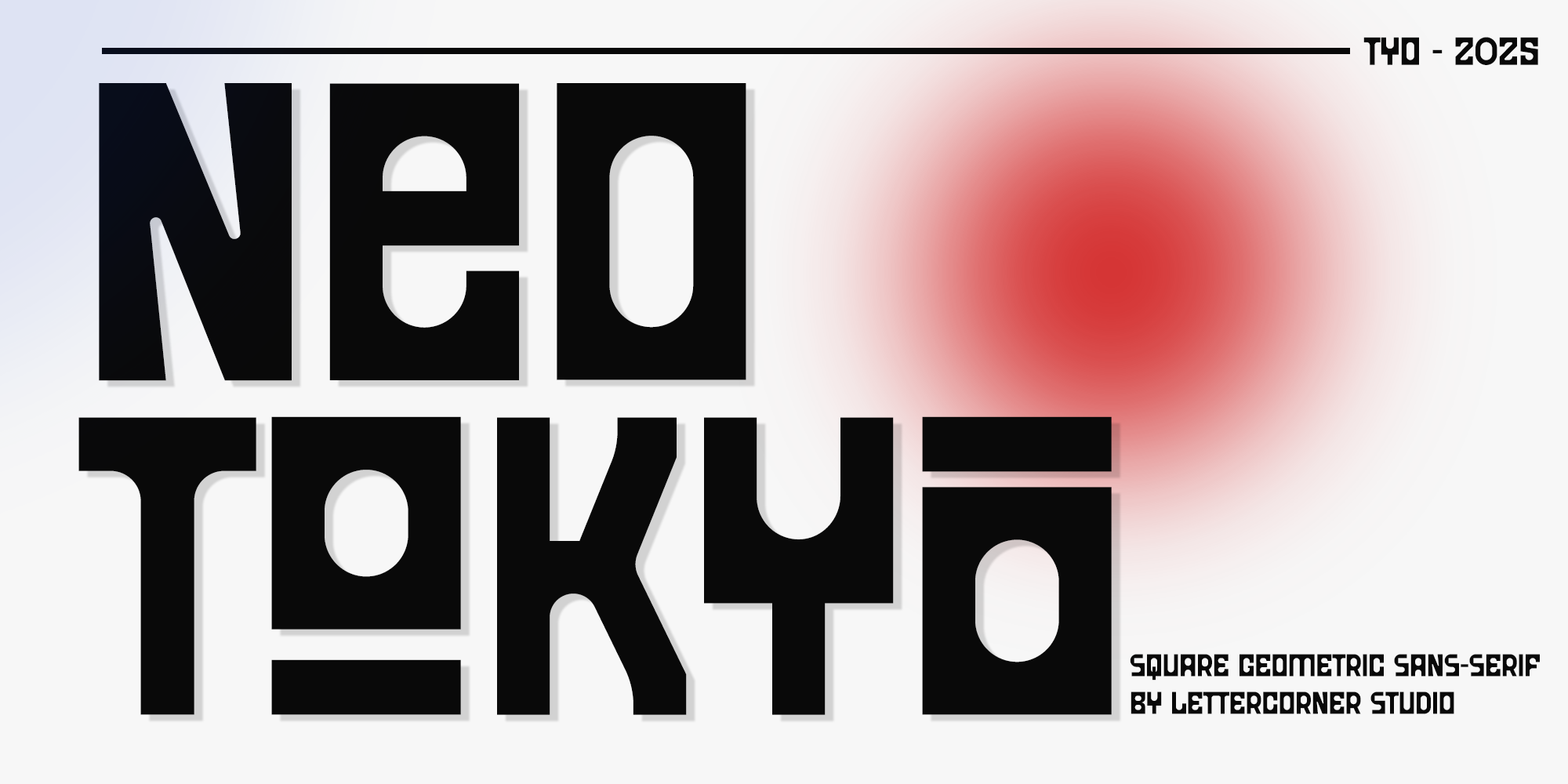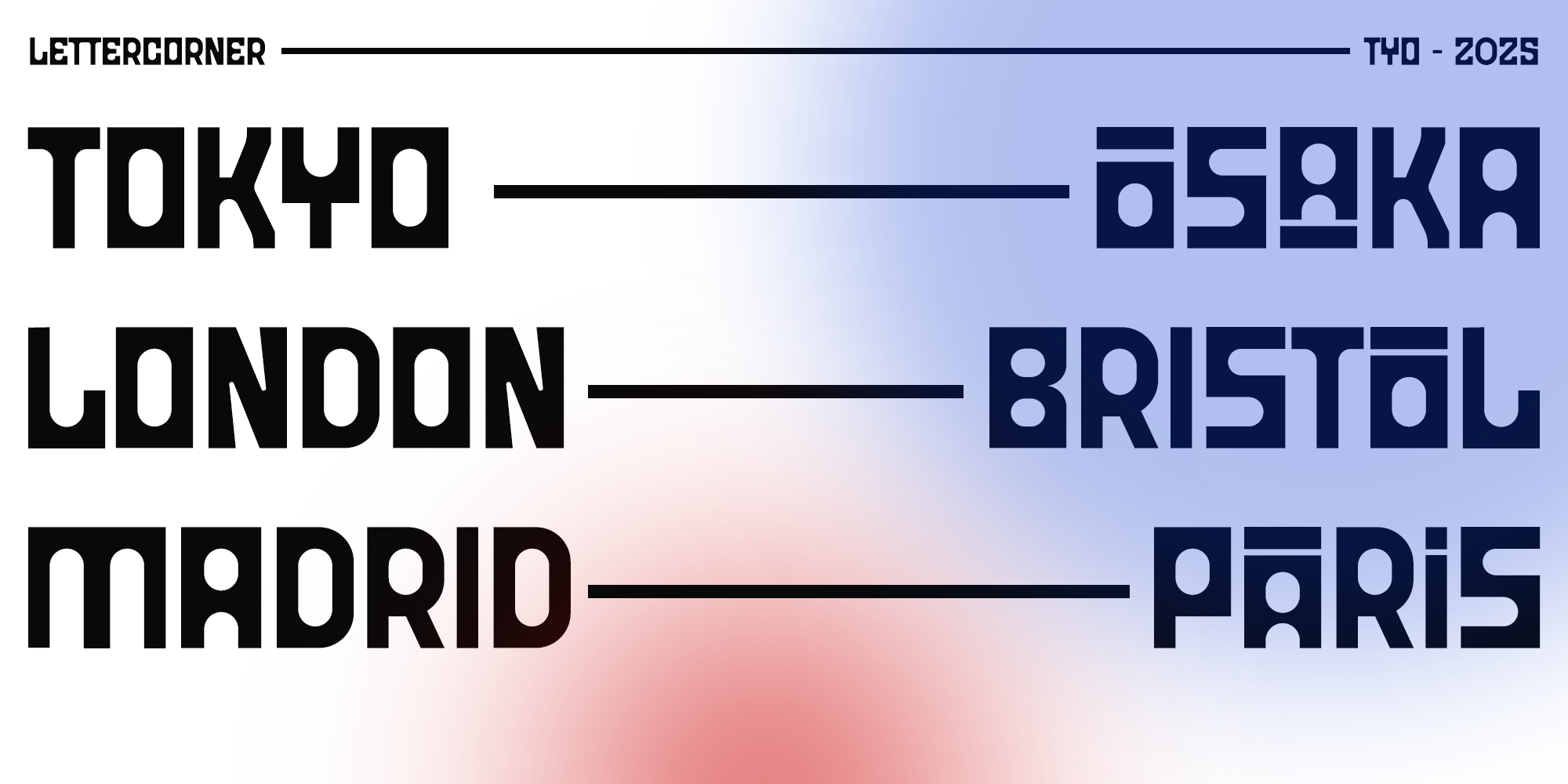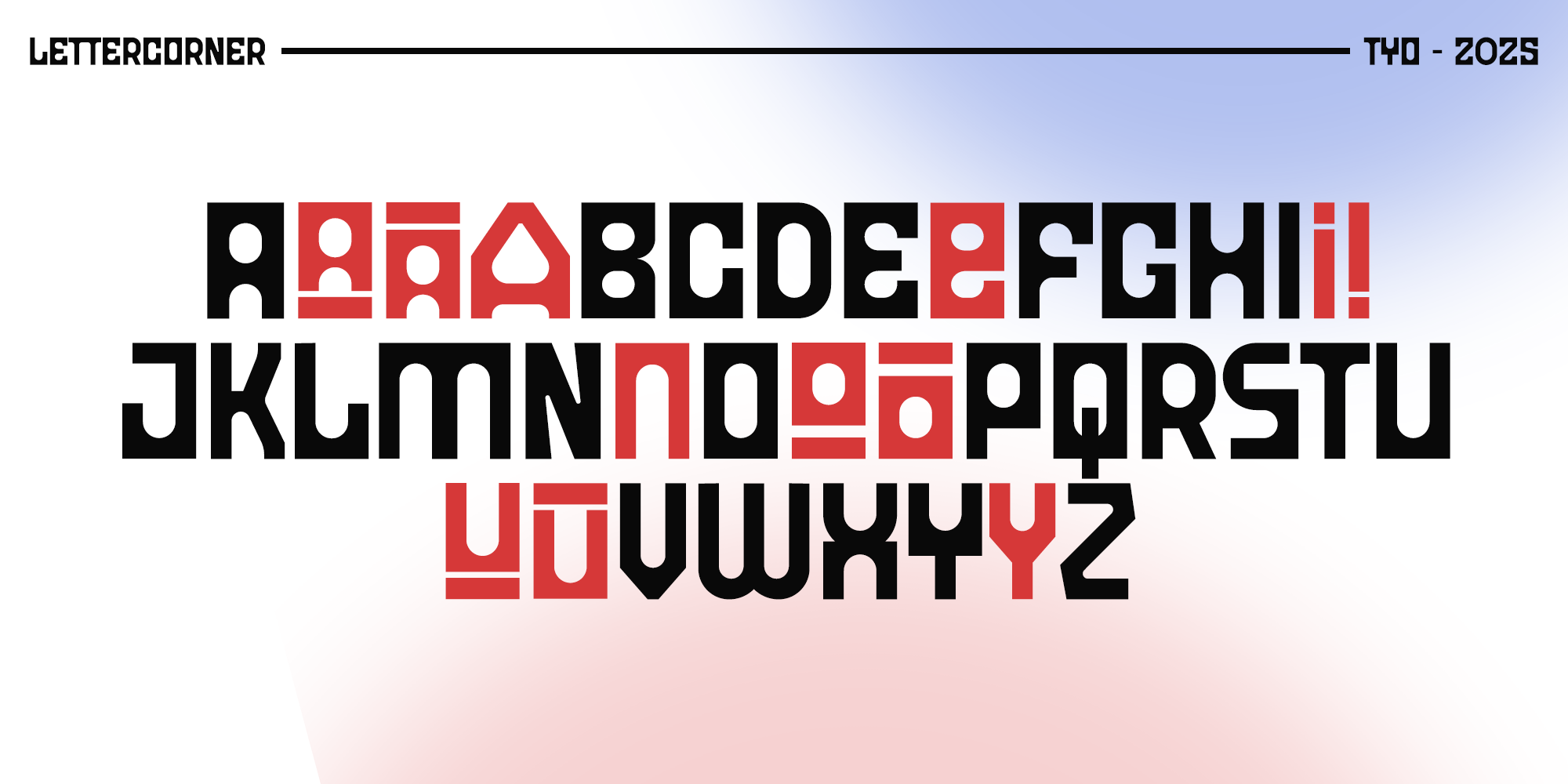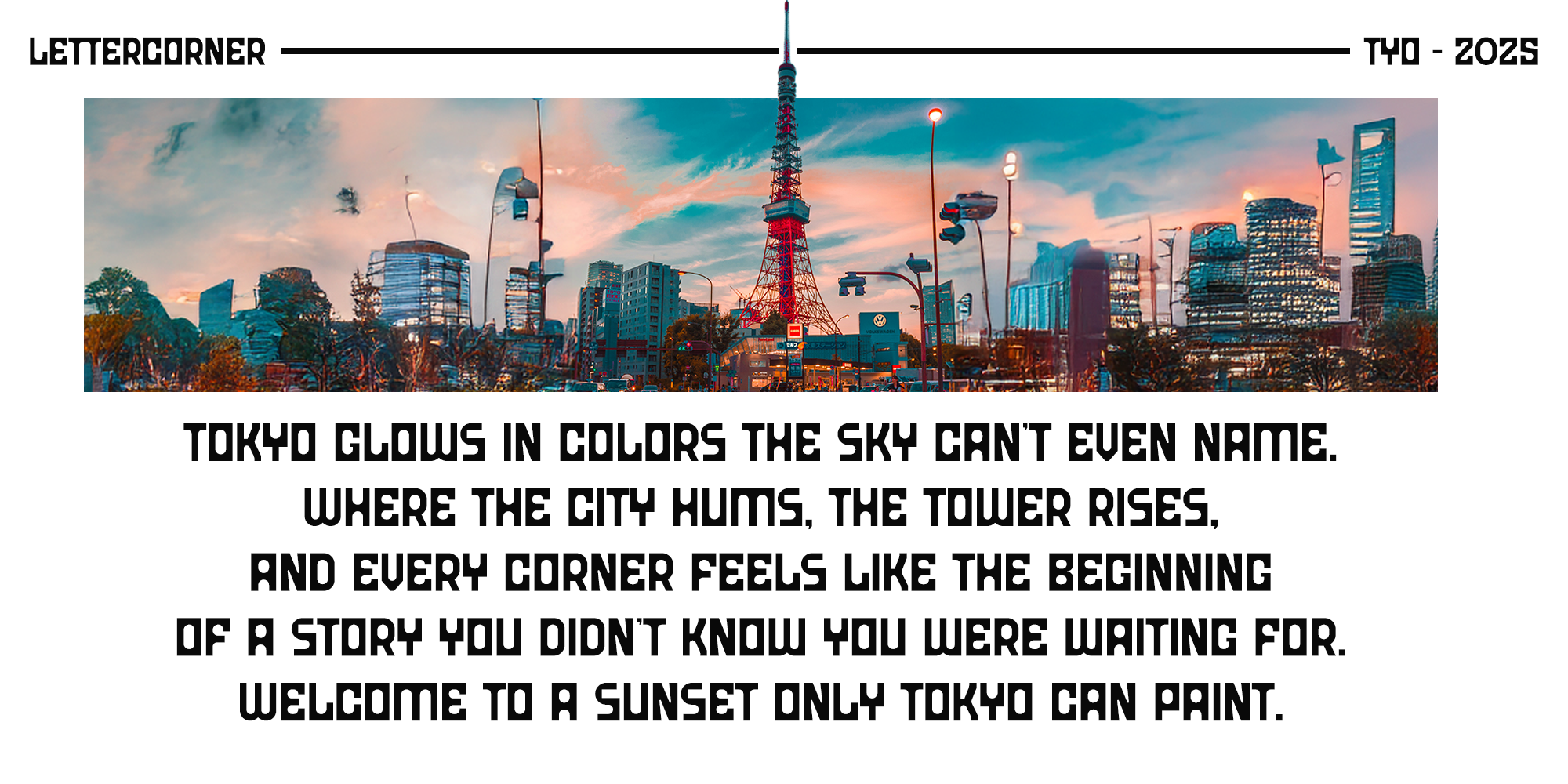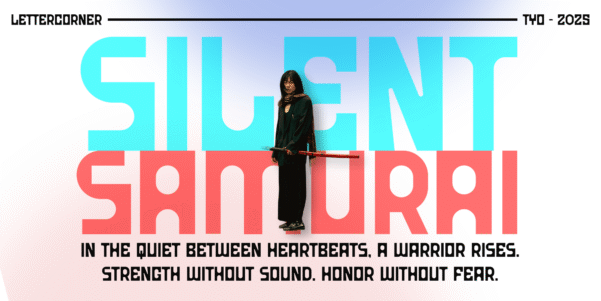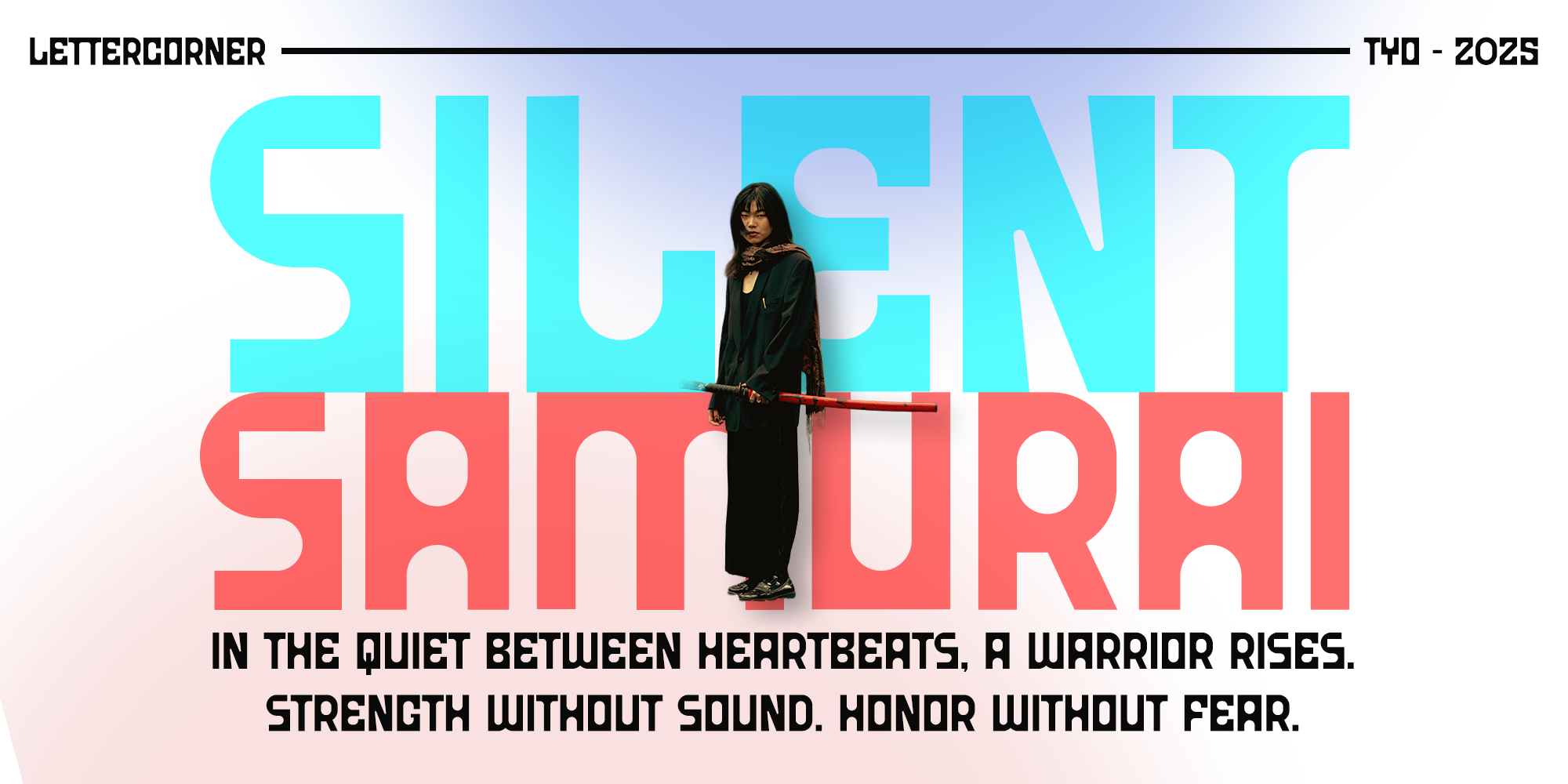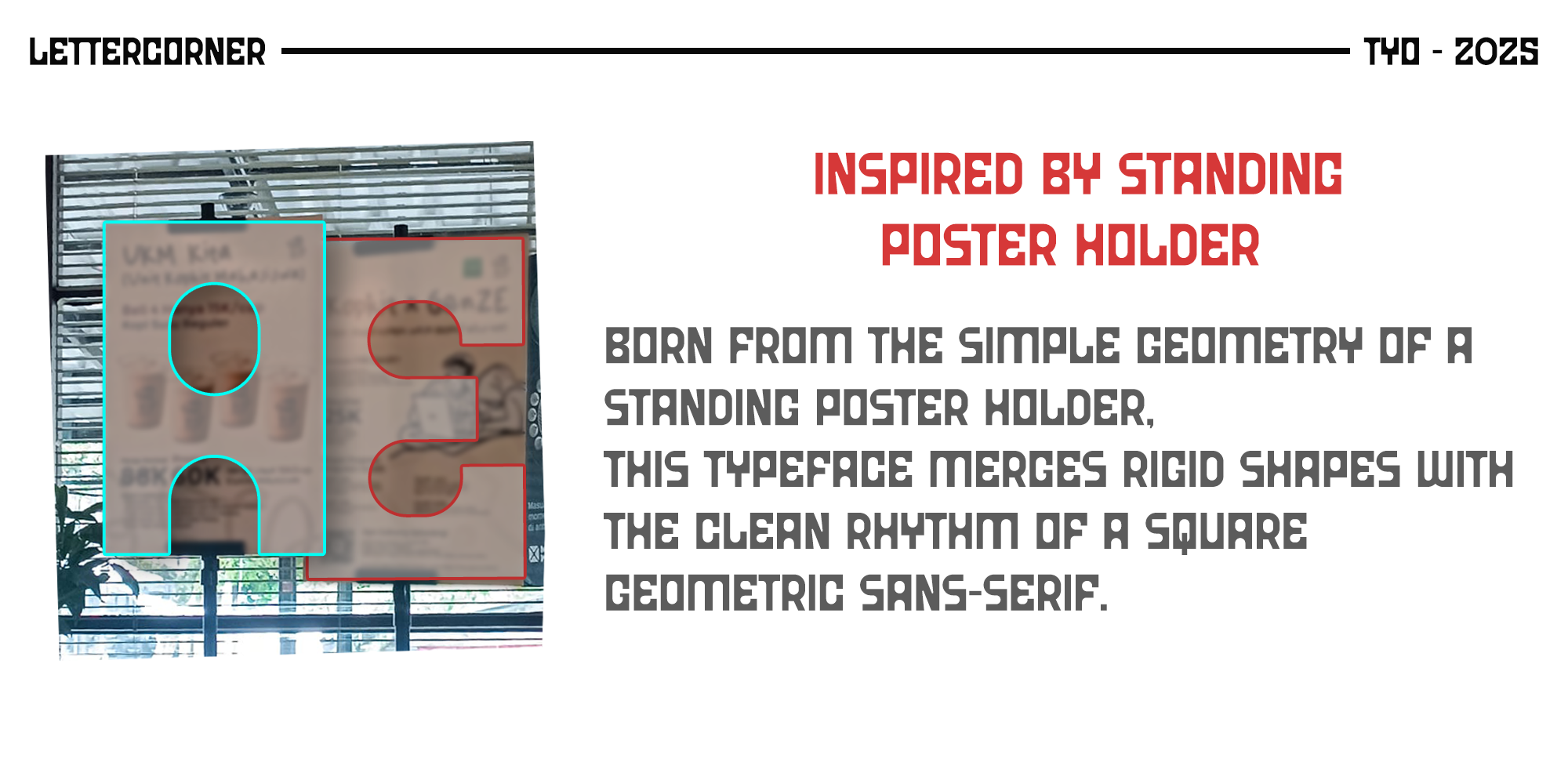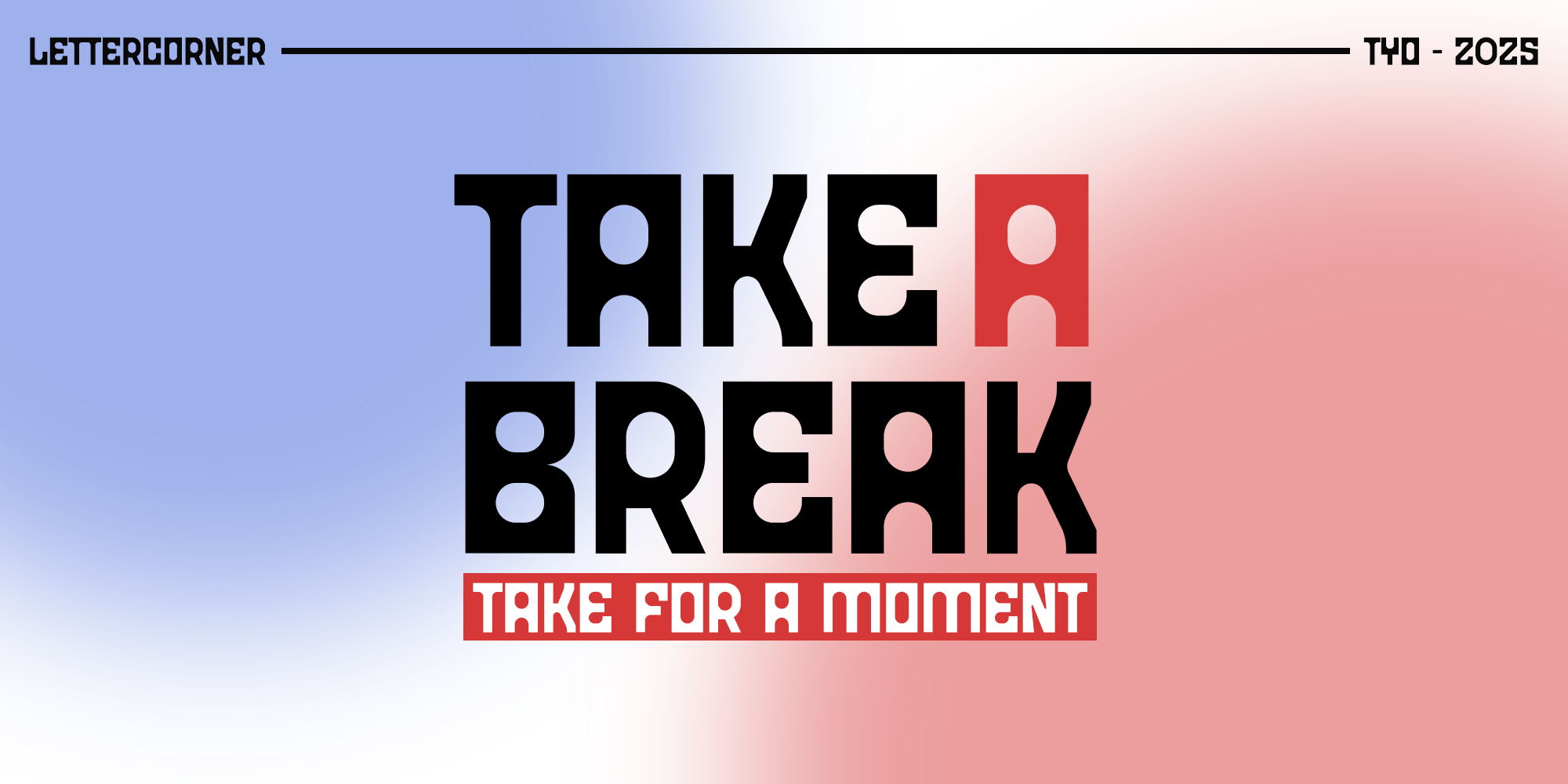
NEOTOKYO
NEOTOKYO is a display typeface inspired by the bold, structural silhouette of a standing poster holder.
Each letter blends rigid geometric forms with the clean rhythm of a square geometric sans-serif, producing a modern, boxy aesthetic that feels both industrial and futuristic.
Designed for striking headlines, branding, posters, and visual storytelling, NEOTOKYO brings a sense of structure and personality through its strong verticals, unconventional curves, and modular shapes.
Its unique letterforms allow you to craft expressive compositions—from cinematic titles to bold typographic layouts.
The font carries subtle echoes of architecture, signage, and urban design, creating an identity that feels engineered yet artistic—perfect for creators who want their typography to stand out with a distinct visual character.